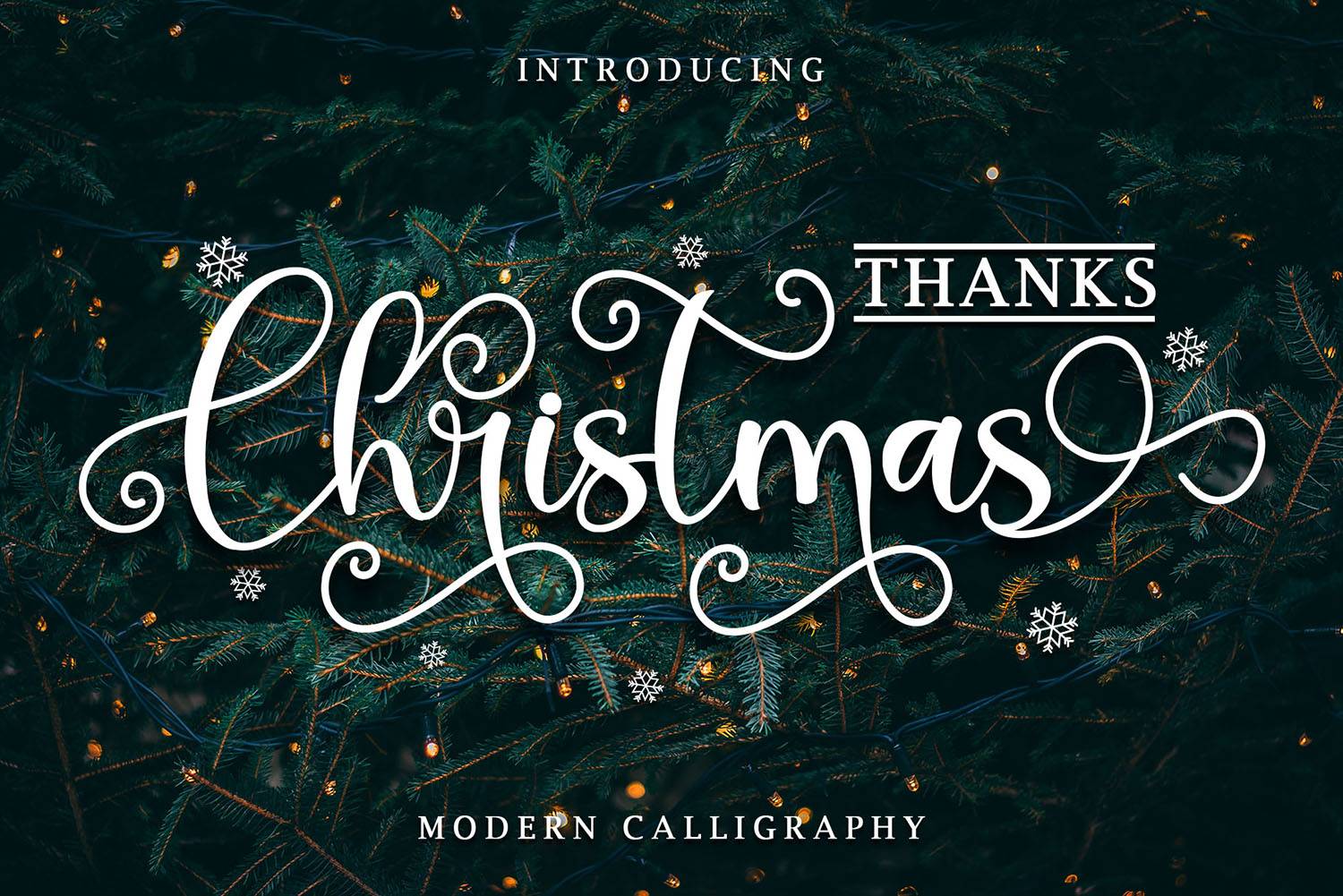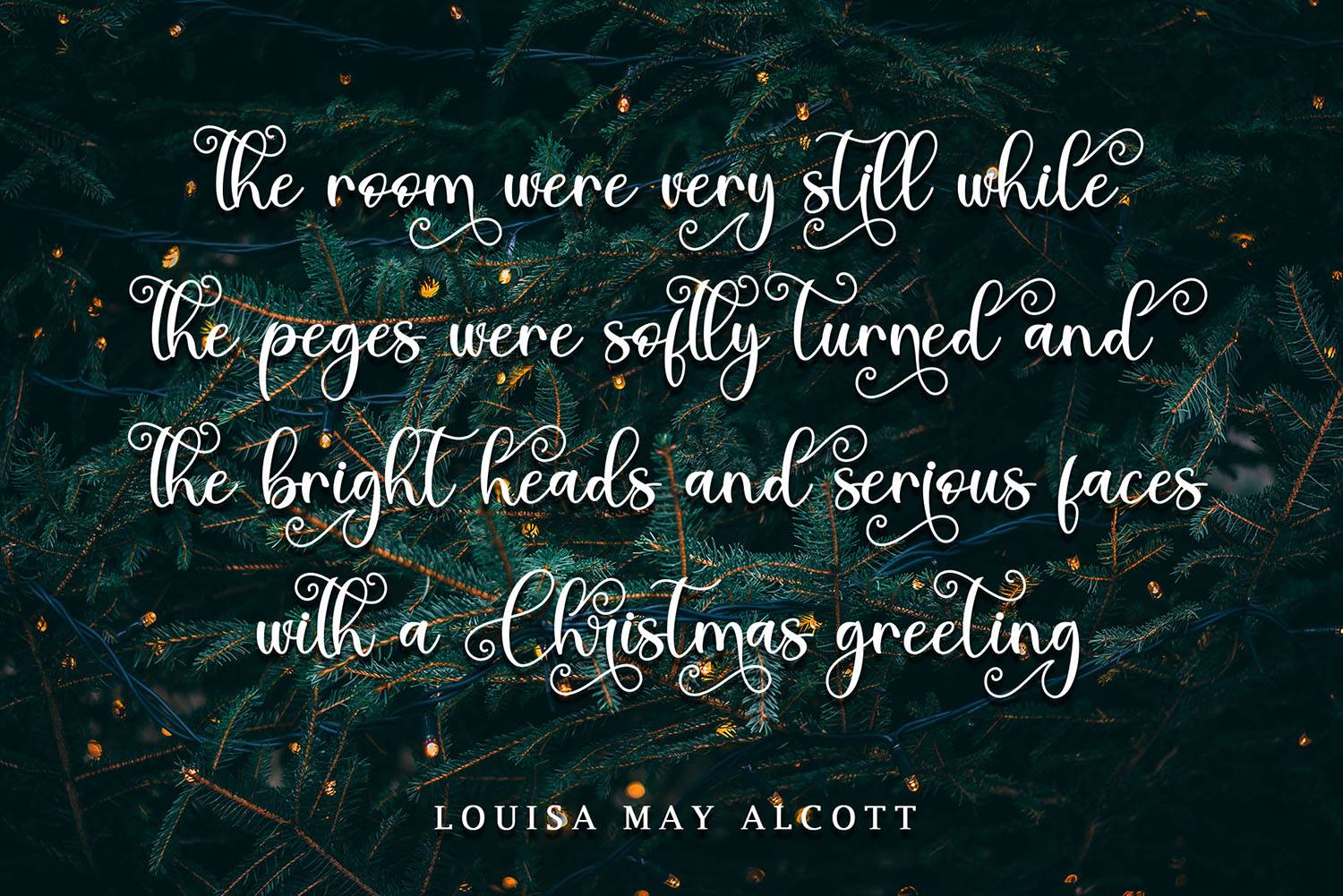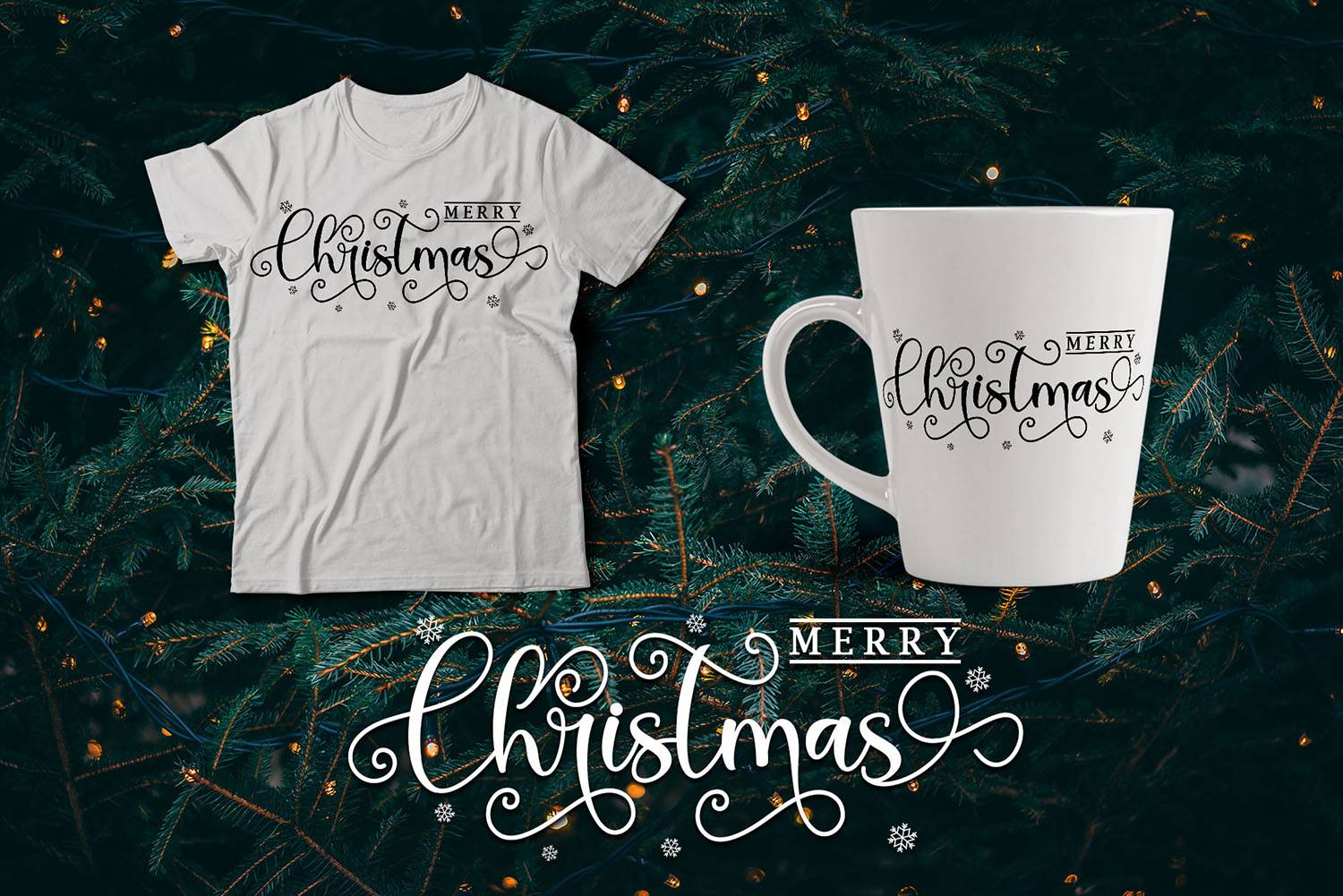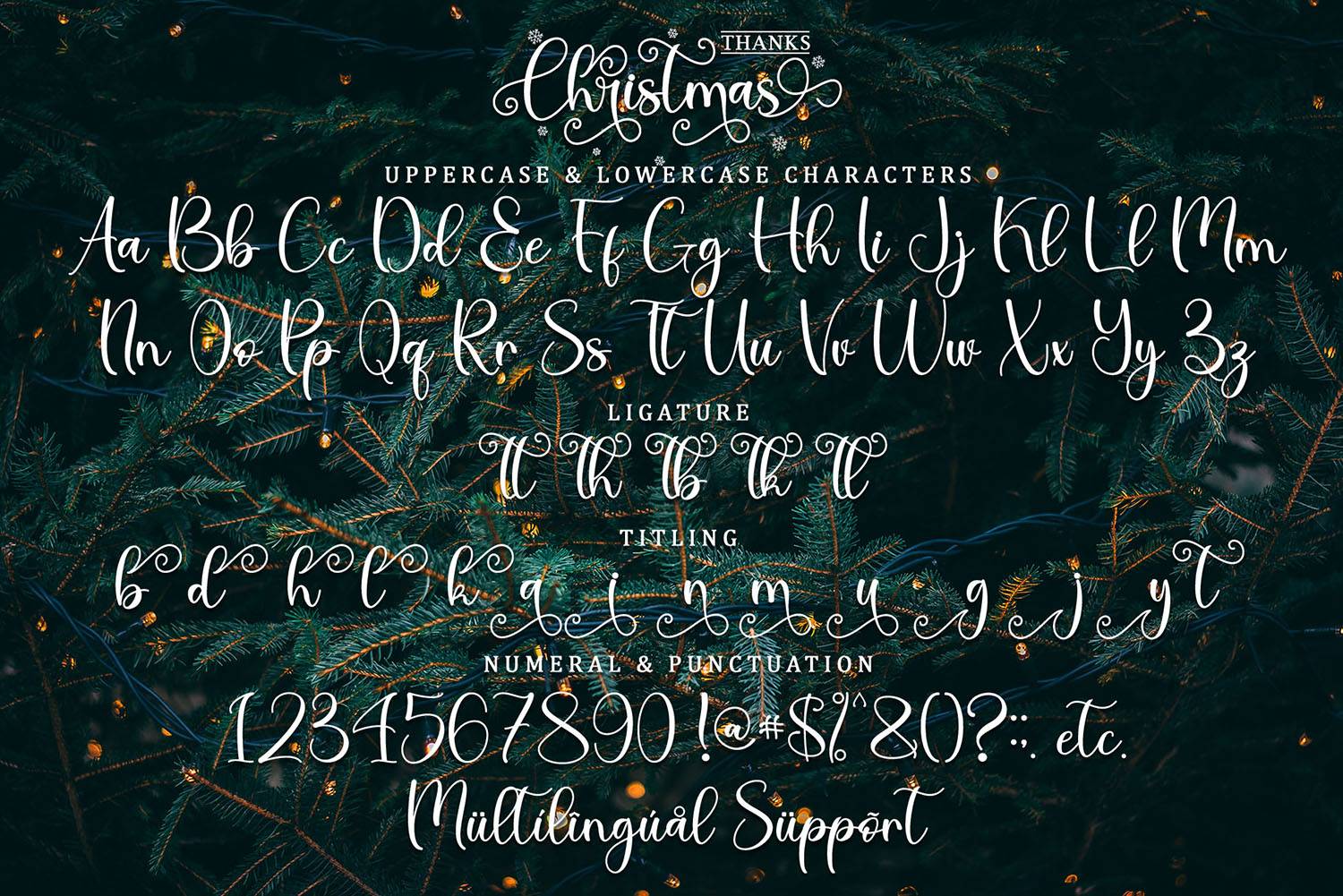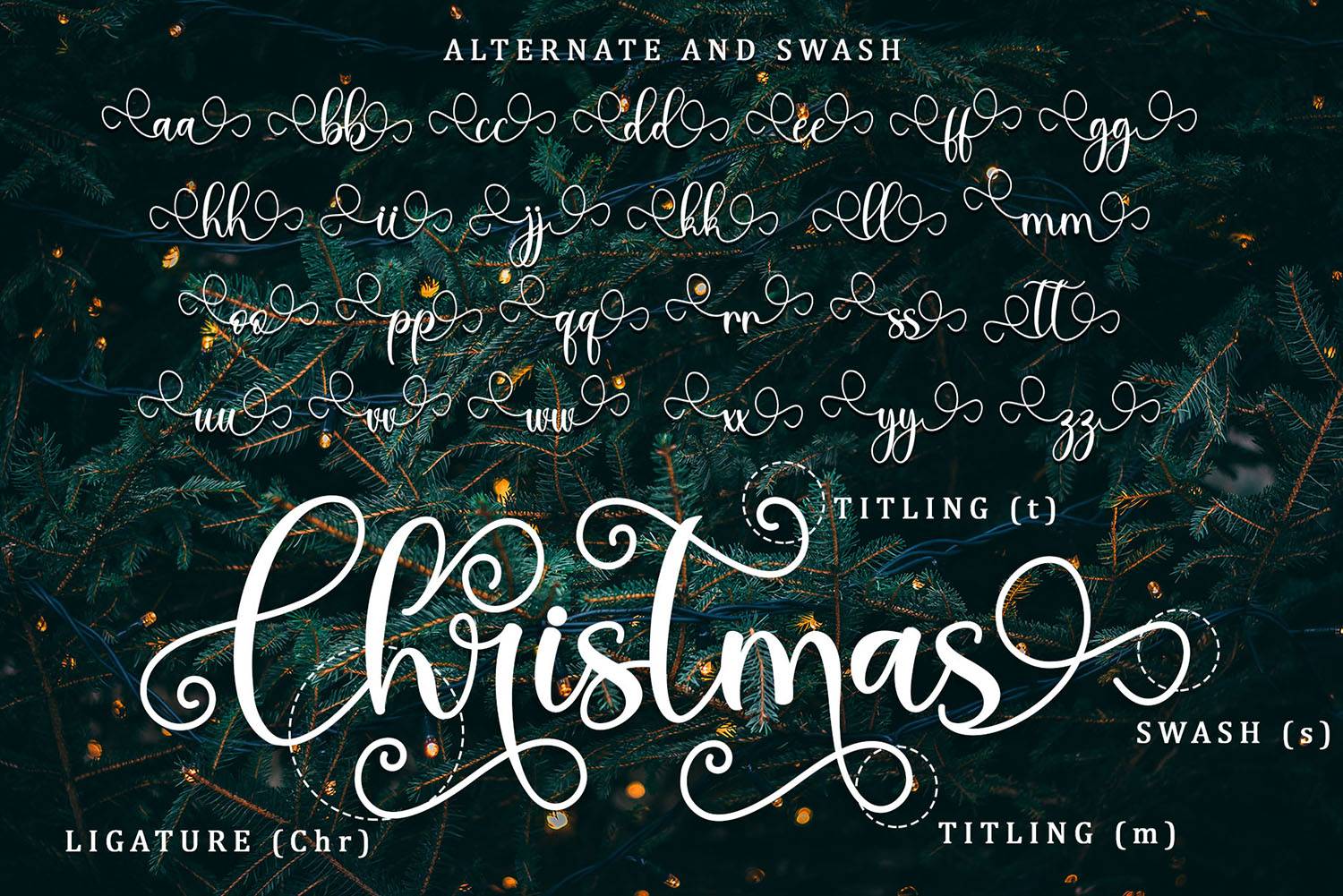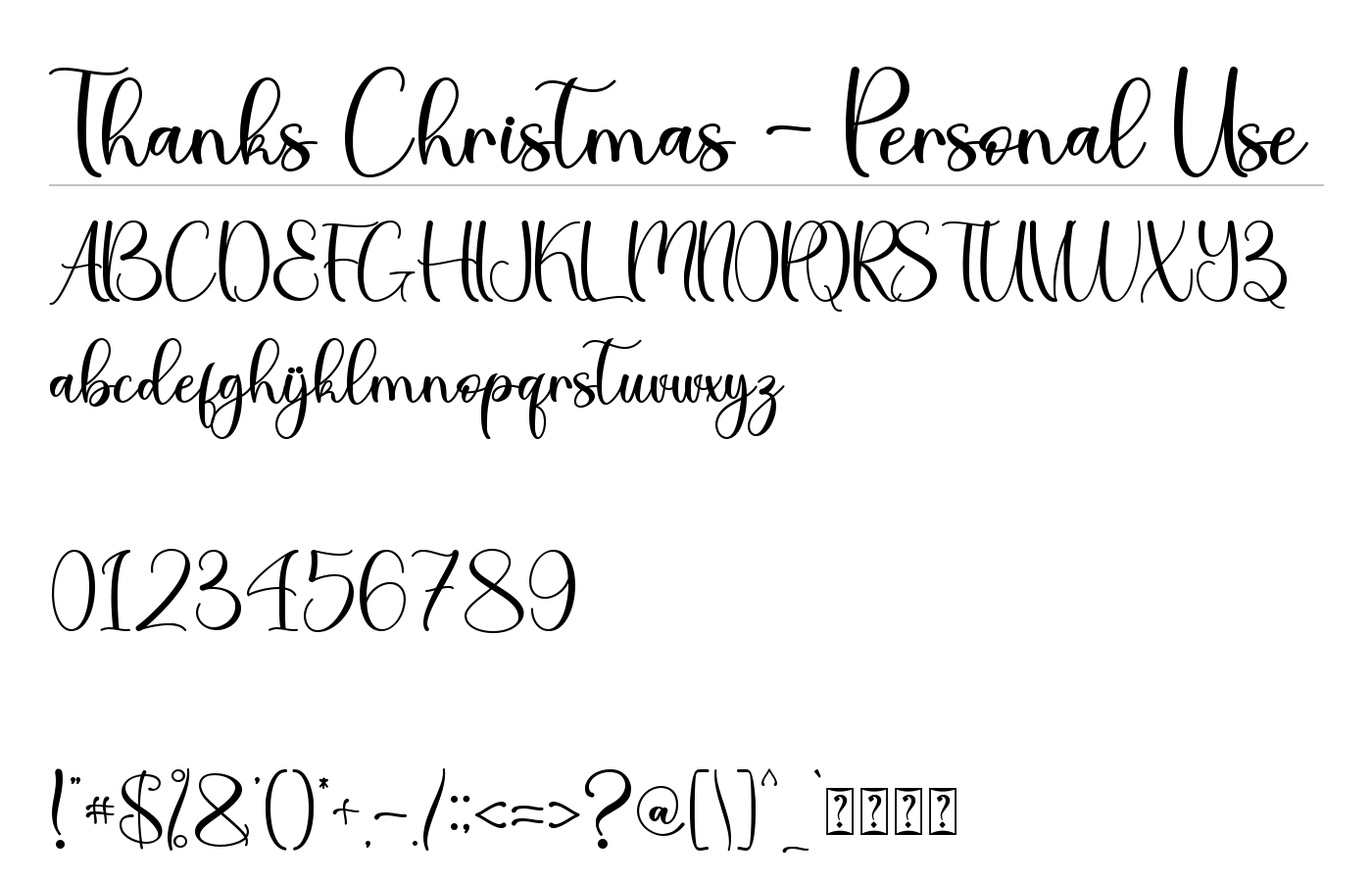
Thanks Christmas is a charming script font with elegant, flowing strokes and a playful, hand-lettered feel. Its slender, slightly irregular letterforms and high contrast between thick and thin lines make it perfect for festive invitations, greeting cards, and creative holiday designs that want to convey warmth and personality. This font works best in decorative headlines and branding where a personal, cheerful touch is desired.
Thanks Christmas Font
About Thanks Christmas Font